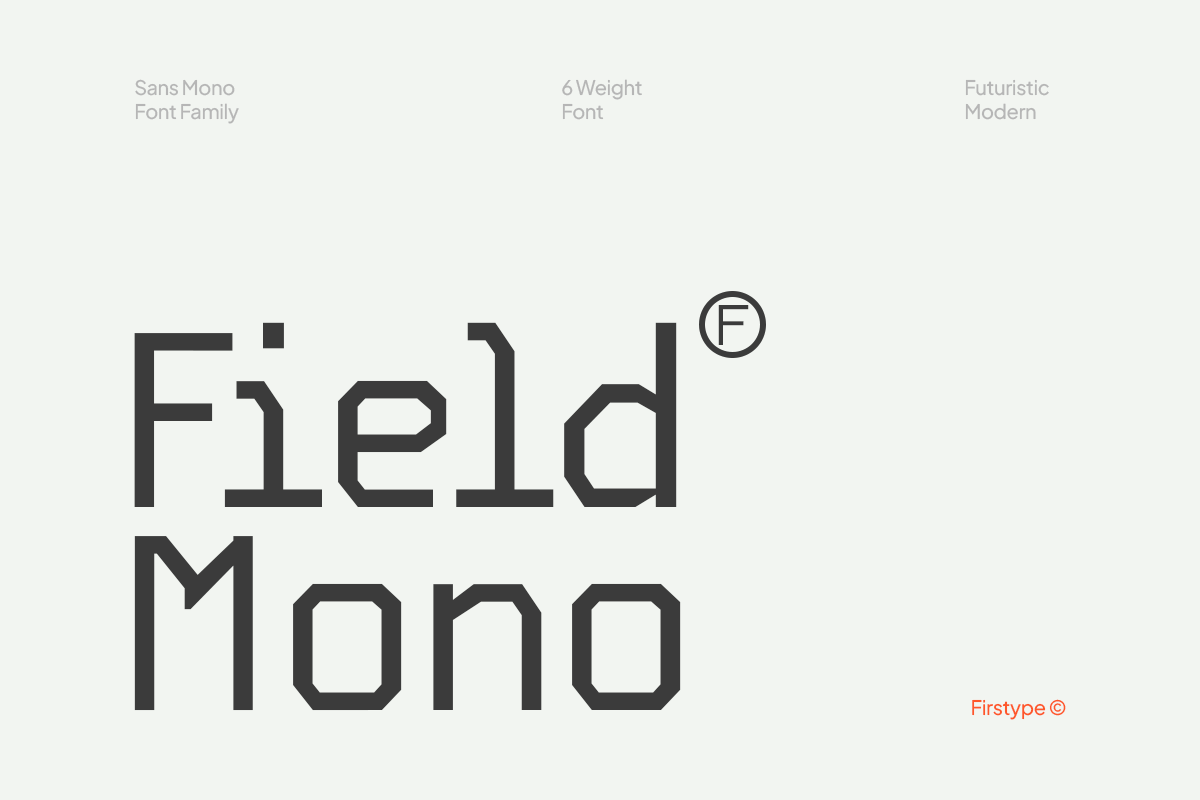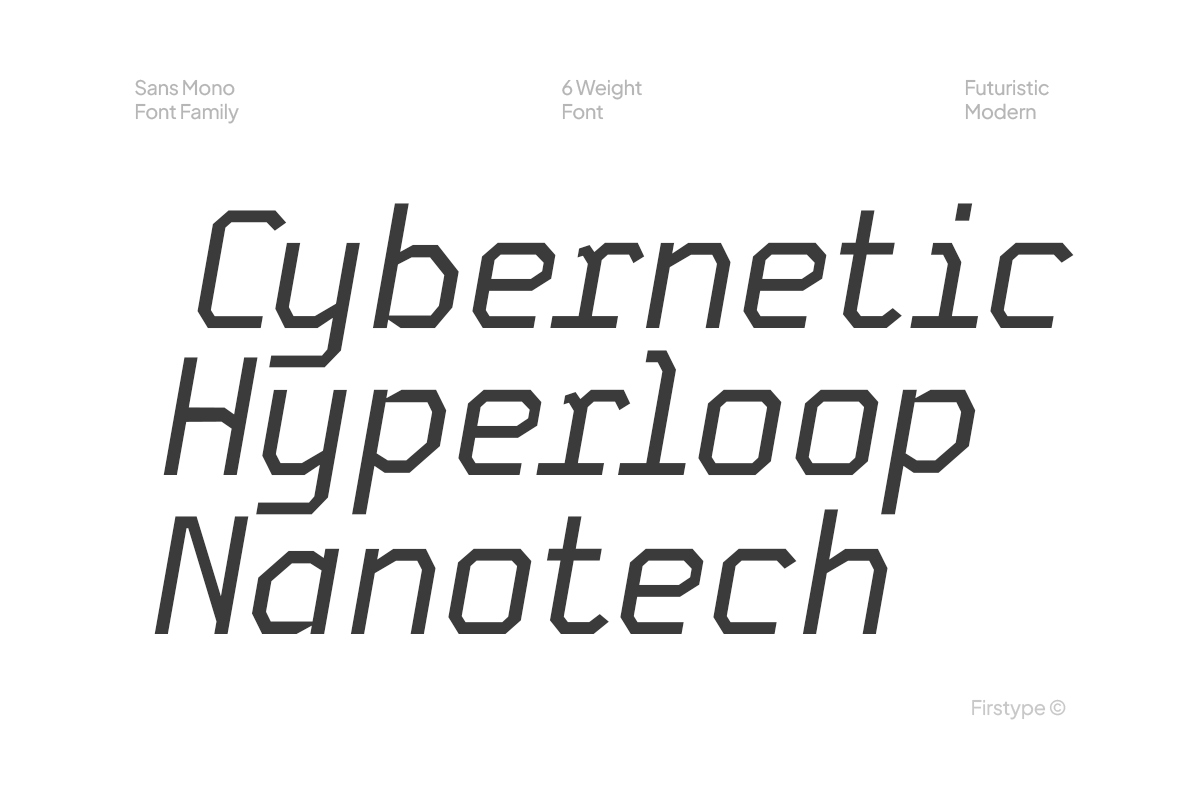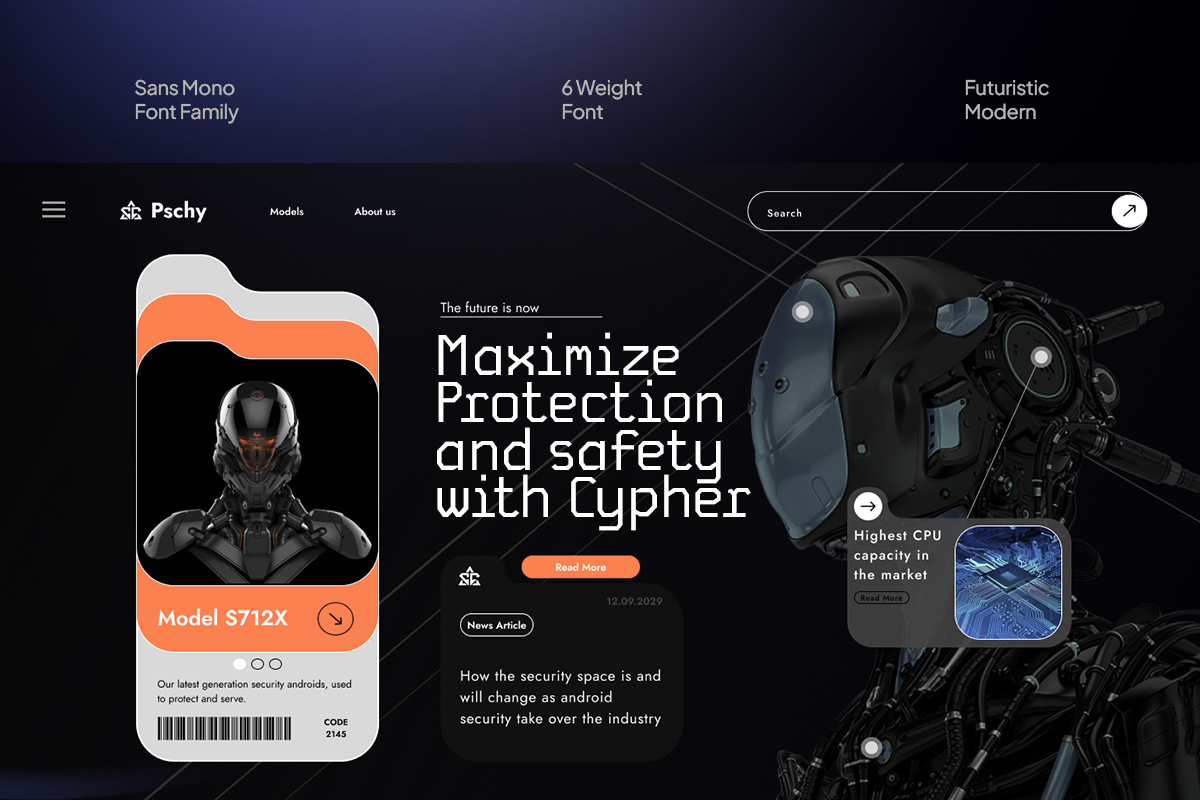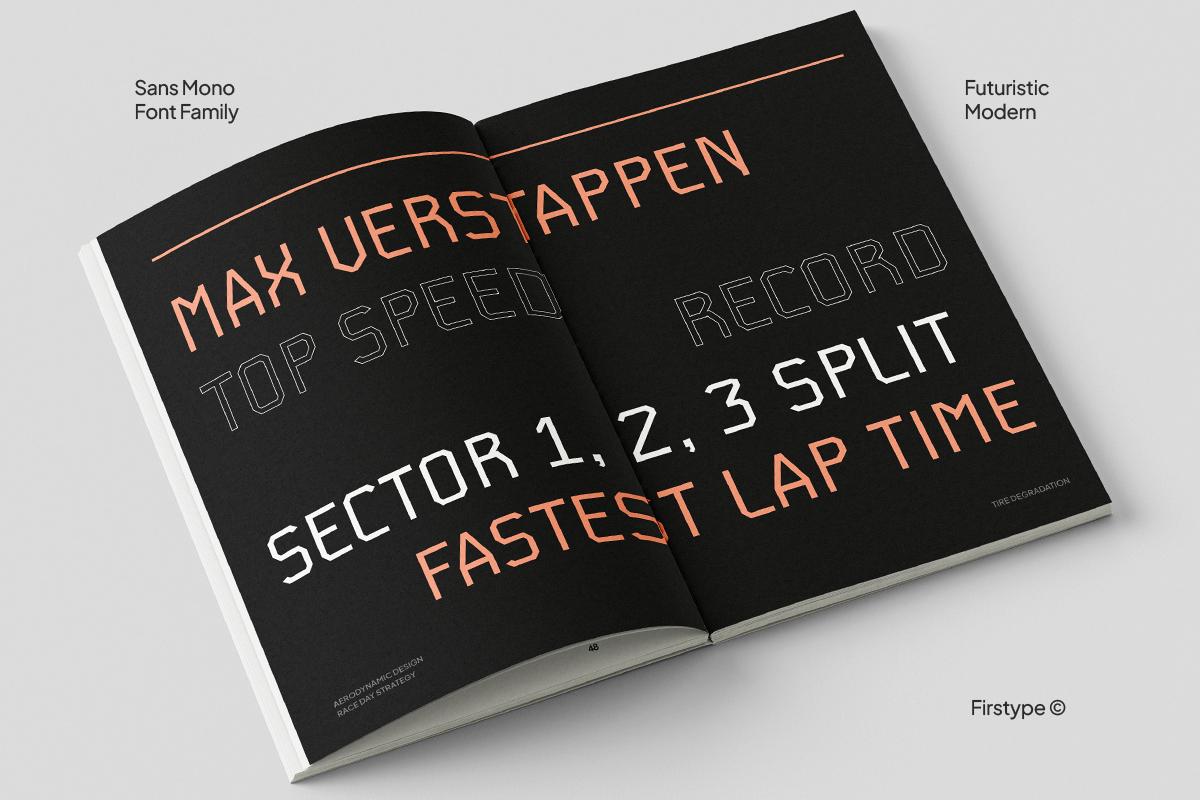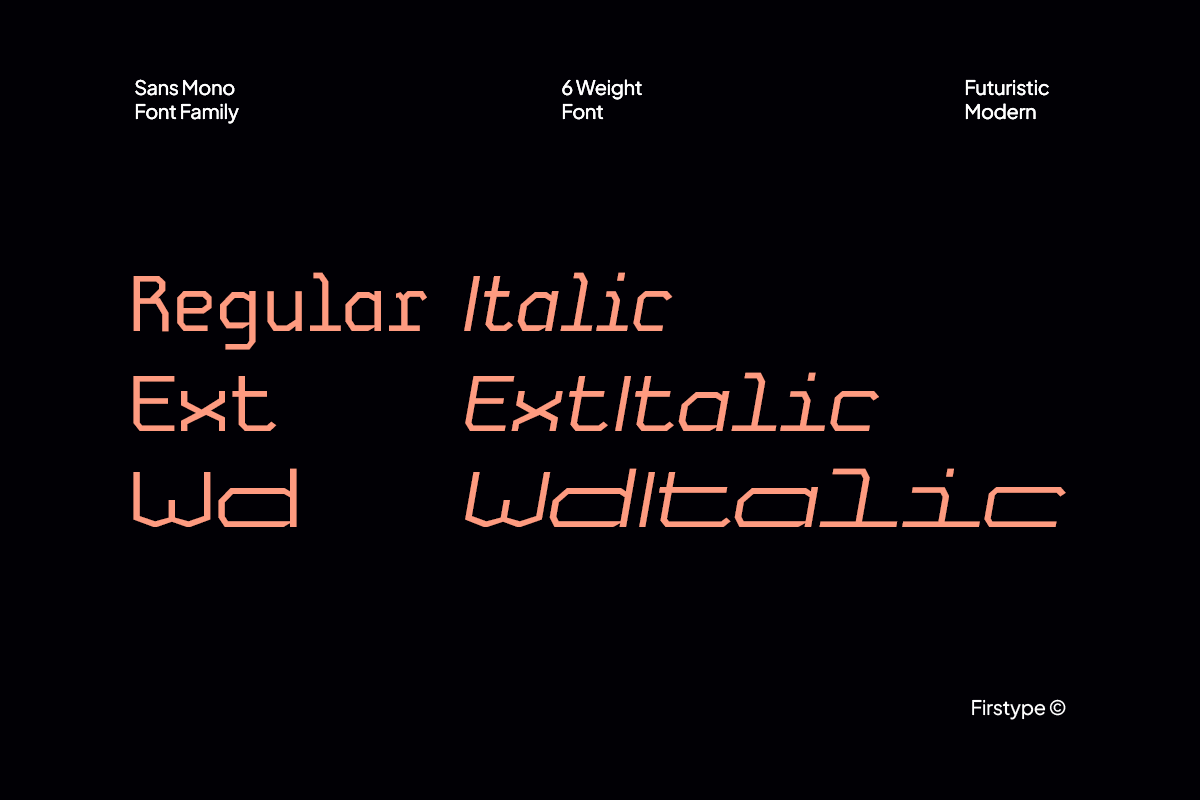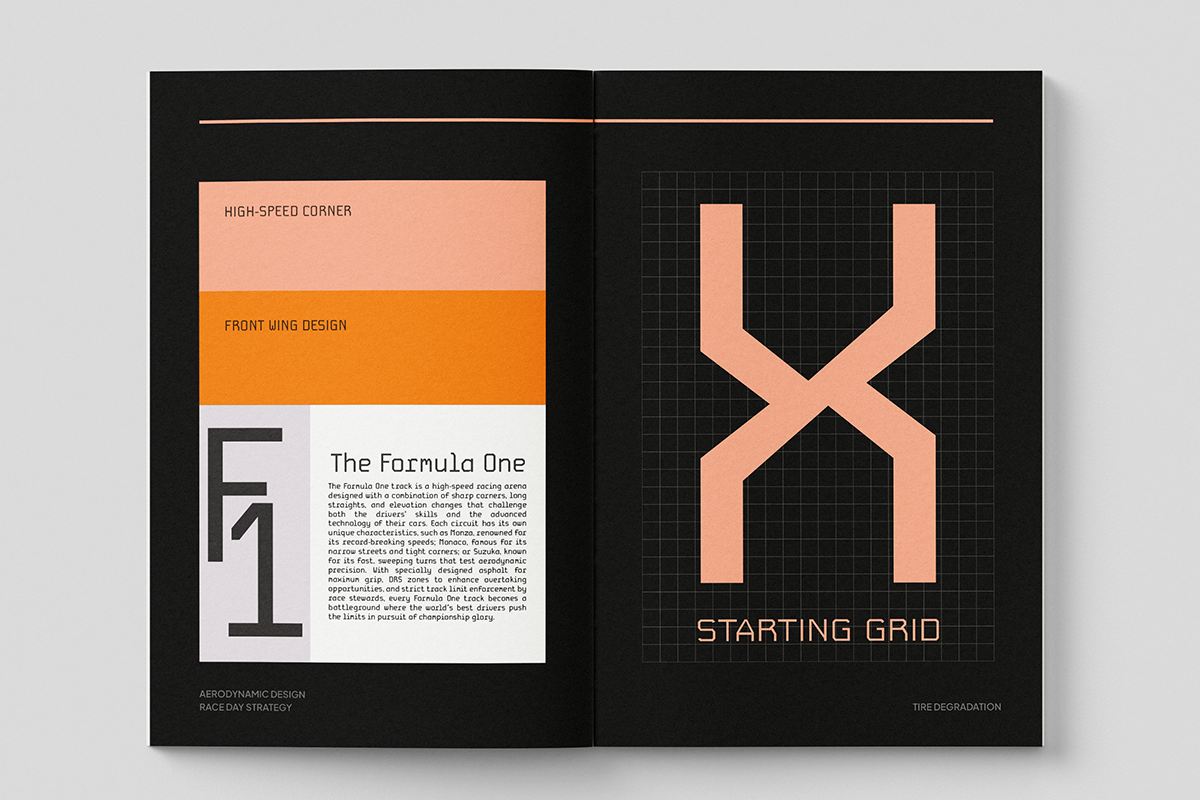
Field Mono created by Adrian Syauqi Khairullah is a sleek, futuristic monospaced typeface crafted for visionaries, developers, and modern creatives. With precise geometric shapes, clean-cut terminals, and balanced spacing, it brings a high-tech, minimal aesthetic perfect for logos, tech brands, interfaces, and sci-fi visuals.
This font embodies a cyberpunk spirit—structured, sharp, and forward-thinking. Whether you're building modern branding for startups, crafting UI/UX dashboards, or designing for gaming and futuristic concepts, Field Mono delivers a digital-age visual impact.
🧠 Minimal. Modern. Monospaced. Made for the future.
⚡ Best For:
Tech startups, SaaS companies, and digital branding
UI/UX designers working on clean, modern interfaces
Coding and development tools with a sleek visual style
Cyberpunk and sci-fi inspired design projects
Magazines, portfolios, and futuristic presentations
Gaming UIs, HUDs, and developer-themed apparel
With its even spacing and pixel-perfect appearance, Field Mono shines in both digital and print, giving any design a refined, tech-forward presence.